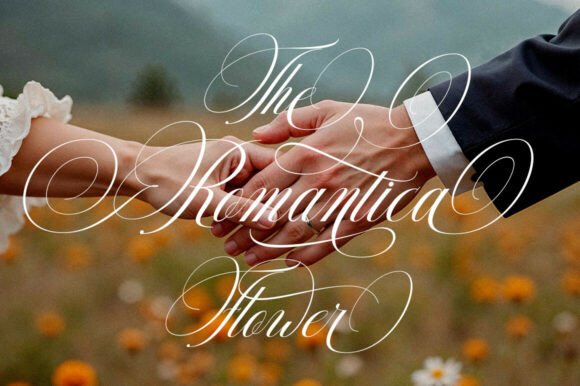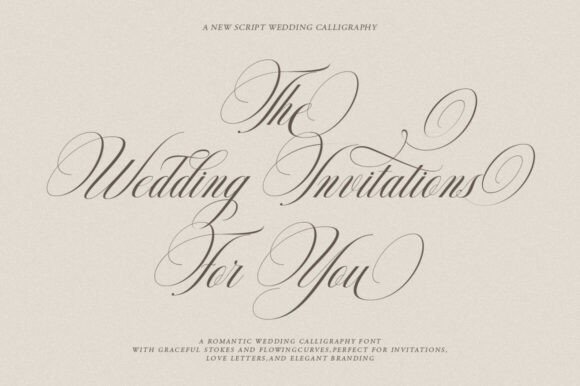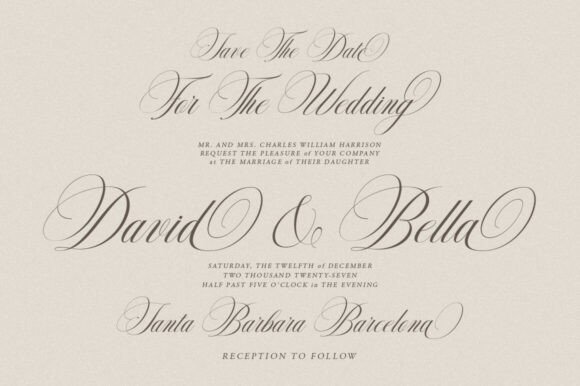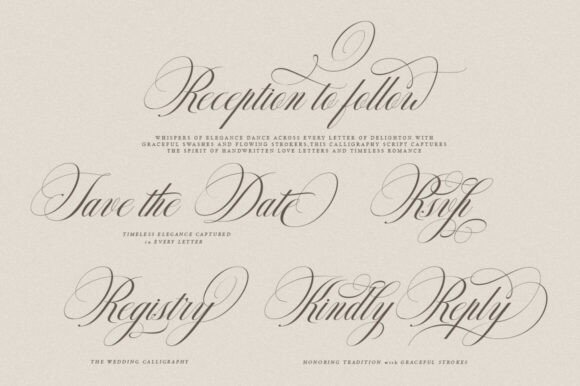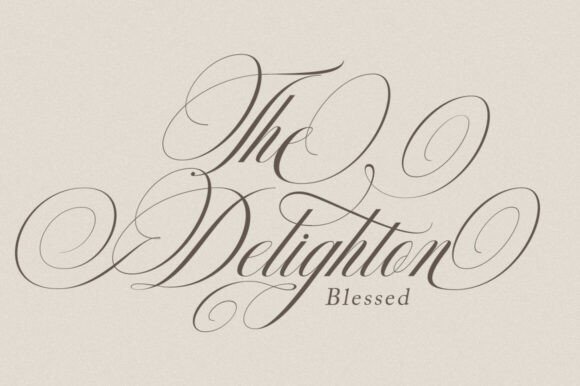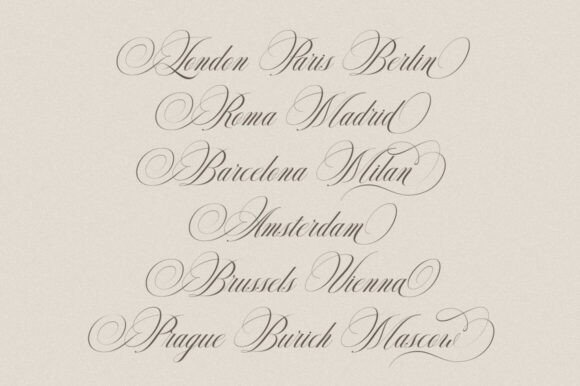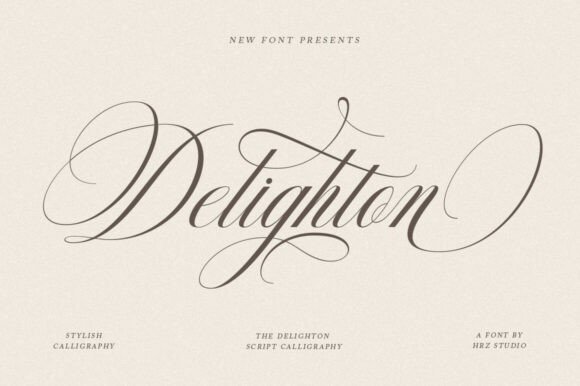
Introducing Delighton Script Font: Elevate Your Designs with Elegance
Are you looking for a font that exudes classic sophistication with a modern twist? Look no further than Delighton Script, a stunning calligraphy script font designed to bring a touch of elegance to your designs. With its beautiful changing characters, Delighton Script is the perfect choice for crafters and designers seeking to add a level of refinement to their work.
A Classic Decorative Copper Script with a Modern Touch
Delighton Script is a masterfully designed font that combines the timeless charm of a classic decorative copper script with a modern flair. Each character is crafted with high detail, resulting in a typeface that is not only visually stunning but also smooth, clean, and easy to read. The font’s classic style makes it an excellent choice for formal applications, such as invitations, labels, restaurant menus, logos, and more.
Feminine, Sensual, and Glamorous
Delighton Script is a font that embodies femininity, sensuality, and glamour. Its flowing lines and fancy letter connections create a sense of movement and fluidity, making it perfect for designs that require a touch of sophistication. Whether you’re working on a fashion brand, a makeup product, or a wedding invitation, Delighton Script is sure to impress.
One of the standout features of Delighton Script is its versatility. The font comes with multiple style alternatives for many letters, allowing you to experiment with different looks and find the perfect fit for your design. This flexibility makes Delighton Script suitable for a wide range of applications, including stationery, novels, magazines, books, greeting cards, wedding cards, packaging, labels, and any type of advertising purpose.
Delighton Script is a font that is sure to delight designers and crafters alike. Its elegant and refined aesthetic makes it an excellent choice for anyone looking to add a touch of sophistication to their work. Whether you’re designing a logo, creating a brand identity, or crafting a beautiful invitation, Delighton Script is the perfect tool to help you achieve your design goals.
Key Features of Delighton Script Font
- Beautiful changing characters for a unique look
- Classic decorative copper script with a modern touch
- Smooth, clean, and easy to read
- Feminine, sensual, and glamorous aesthetic
- Multiple style alternatives for many letters
- Suitable for a wide range of applications, including formal and informal designs
Delighton Script font is a stunning calligraphy script font that is sure to elevate your designs with its classic elegance and modern touch. With its beautiful changing characters, smooth lines, and multiple style alternatives, Delighton Script is the perfect choice for designers and crafters seeking to add a touch of sophistication to their work. Download Delighton Script font today and experience the power of elegant typography.